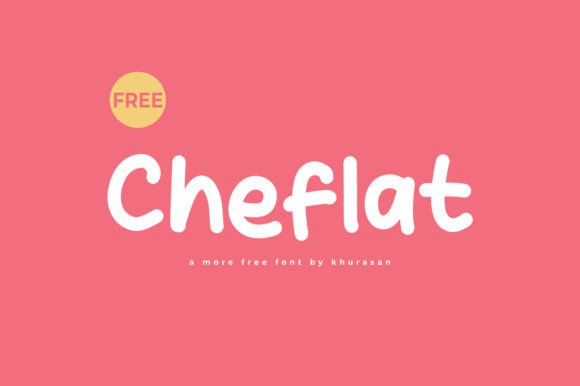
Cheflat: A Modern Display Font for Bold Designs
In the crowded landscape of digital and print media, the difference between a design that captures attention and one that fades into the background often comes down to typography. For designers, marketers, and creative professionals seeking a typeface that balances contemporary aesthetics with visual impact, Cheflat offers a compelling solution. This modern and fancy display font is engineered to elevate posters, logos, magazines, book covers, and banners, providing a distinct voice for brands and projects that demand to be noticed.
Typography is more than just selecting letters; it is about establishing an immediate emotional connection with the viewer. When you introduce Cheflat into your workflow, you are choosing a tool designed to simplify complex design decisions while enhancing the overall presentation of your work. Whether you are launching a new product, creating an event invitation, or refining a corporate identity, the right font can serve as the anchor that holds your visual narrative together.
The Distinctive Character of Cheflat
Cheflat stands out in the typographic market due to its unique blend of modernity and ornamental flair. Unlike standard sans-serif fonts that prioritize neutrality, or traditional serifs that lean heavily on history, this display font occupies a space where current trends meet timeless elegance. Its structure allows for high readability at large sizes, making it ideal for headlines and titles where visual hierarchy is paramount.
The "fancy" aspect of the font does not come at the expense of legibility. Instead, the decorative elements are integrated in a way that guides the eye smoothly across the text. This makes Cheflat particularly effective for short bursts of impactful messaging. When used correctly, it transforms a plain layout into a sophisticated composition, adding depth and character without requiring excessive graphic manipulation.
Why Typography Matters for Your Brand
For entrepreneurs and small business owners, the visual identity of a brand is often the first interaction a customer has with the company. A logo created with a generic font may convey competence, but a logo utilizing Cheflat conveys personality and confidence. The font's bold strokes and refined details suggest a brand that values quality and pays attention to detail.
Consider the psychology of the viewer. When a consumer sees a magazine cover or a banner featuring a distinctive typeface, they subconsciously associate the design with professionalism and creativity. By adopting Cheflat, creators can leverage this psychological response to strengthen their communication strategy. It is not merely about making text look different; it is about ensuring the message resonates with the intended audience through a medium that feels intentional and curated.
Practical Applications Across Industries
The versatility of Cheflat extends across a wide array of professional scenarios. Its ability to match an incredibly large set of projects makes it a valuable asset for freelancers and agencies who need to deliver varied results efficiently. Below are specific use cases where this font excels.
Posters and Event Marketing
Event organizers and marketers rely on posters to generate excitement and drive attendance. In this context, the headline must dominate the visual field. Cheflat provides the necessary weight and style to make event titles pop against busy backgrounds. Whether promoting a music festival, a fashion show, or a corporate seminar, the font's modern aesthetic ensures the design feels current and relevant. It saves time by reducing the need for complex image overlays, as the typography itself carries the visual load.
Logos and Brand Identity
For startups and rebranding initiatives, the logo is the cornerstone of visual identity. Cheflat offers a distinctive silhouette that helps a brand stand out in a saturated market. Its clean lines allow for scalability, meaning the logo remains recognizable whether it appears on a business card or a billboard. Designers appreciate how the font simplifies the decision-making process, offering a ready-made style that feels custom-crafted without the cost of commissioning a bespoke typeface.
Magazines and Book Covers
Publishers understand that the cover is the primary sales tool for print media. A book cover or magazine issue needs to communicate its genre and tone instantly. Cheflat is particularly well-suited for lifestyle, fashion, and modern fiction genres where visual appeal is critical. The font's elegant curves and sharp angles create a sense of intrigue, encouraging potential readers to pick up the publication. It adds a layer of sophistication that elevates the perceived value of the content within.
Banners and Digital Ads
In the fast-paced world of digital advertising, users scroll quickly, giving designers only a fraction of a second to capture attention. Banners utilizing Cheflat benefit from the font's high contrast and clear forms, which remain legible even at smaller screen sizes or when viewed peripherally. Marketers can use this font to create call-to-action headers that command focus, potentially increasing click-through rates by making the ad feel more premium and engaging.
Enhancing Creativity and Efficiency
One of the most significant benefits of integrating Cheflat into a design toolkit is the boost it provides to creative efficiency. Designers often spend hours searching for the perfect typeface or tweaking existing ones to achieve a specific look. With a robust display font like this, the initial setup phase is shortened, allowing more time to be spent on layout, color theory, and content strategy.
The font acts as a catalyst for creativity. When a designer knows the typography will handle the "heavy lifting" of visual interest, they feel freer to experiment with other elements of the design. This can lead to more innovative outcomes and a broader range of ideas being explored. For hobbyists and educators, having access to such a versatile tool lowers the barrier to entry for creating professional-grade materials, enabling them to produce lovely designs that rival those of established studios.
Streamlining the Design Process
Efficiency in design is not just about speed; it is about consistency. Cheflat provides a consistent visual language that can be applied across multiple touchpoints. A marketing team can use the same font for social media graphics, email headers, and printed brochures, ensuring a cohesive brand experience. This consistency strengthens communication and reduces the cognitive load on the audience, who can easily recognize the brand across different platforms.
Who Benefits Most from Cheflat?
While Cheflat is a powerful tool for any creator, certain groups may find it particularly advantageous:
- Freelance Designers: Those who juggle multiple clients across different industries can use this font to quickly adapt to various project requirements without sacrificing quality.
- Small Business Owners: Entrepreneurs looking to establish a strong visual presence without a large budget can leverage the font to create high-impact branding assets.
- Content Creators and Bloggers: Individuals producing digital content can use the font for featured images and headers to increase engagement and shareability.
- Event Planners: Professionals responsible for promotional materials can ensure their events look polished and exciting with minimal effort.
Considerations for Implementation
Despite its versatility, it is important to recognize where Cheflat fits best within a design system. As a display font, it is optimized for larger sizes and shorter text blocks. Using it for long paragraphs of body text may reduce readability and overwhelm the reader. To maximize its effectiveness, pair Cheflat with a simpler, highly legible sans-serif or serif font for body copy. This combination creates a balanced hierarchy where the display font draws attention to key messages, while the secondary font supports detailed reading.
Additionally, while the font is designed to be modern and fancy, the context of the project matters. For extremely formal or conservative industries, such as legal services or traditional finance, the ornamental nature of the font might need to be weighed carefully against the desired tone. However, even in these sectors, using the font sparingly for accents or special announcements can add a refreshing touch of personality.
Final Thoughts on Visual Impact
The choice of typography is a strategic decision that influences how a message is received and remembered. Cheflat represents a thoughtful option for those seeking to merge modern design principles with a touch of elegance. By incorporating this font into posters, logos, magazines, and banners, creators can ensure their work stands out in a visually noisy environment.
Ultimately, the goal of any design is to communicate effectively and leave a lasting impression. Cheflat empowers professionals and enthusiasts alike to achieve this by providing a reliable, stylish, and efficient tool. As you explore your next creative project, consider how a change in typography could transform your vision into a reality that truly resonates with your audience. Adding this amazing font to your collection of creative ideas is a step toward noticing how much more impactful your designs can become.